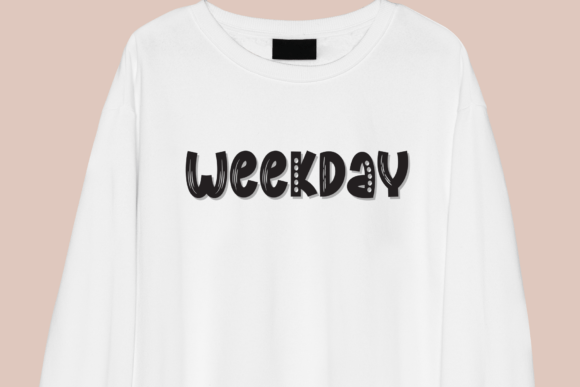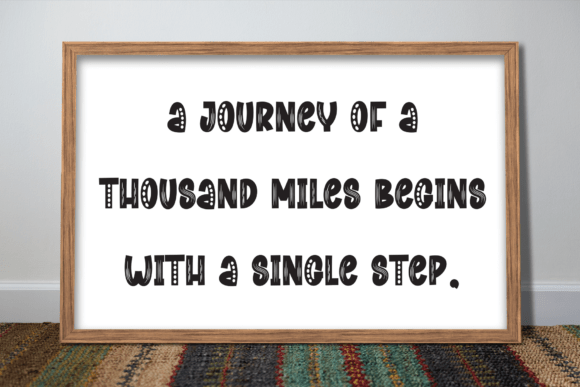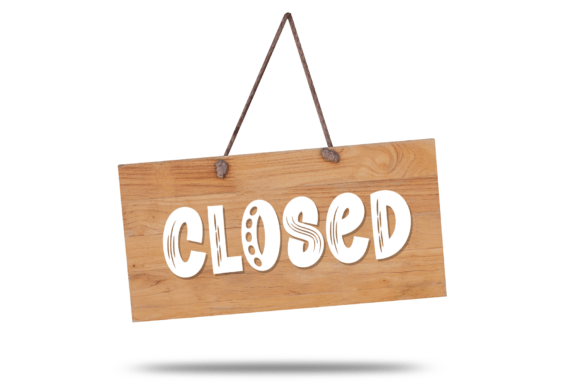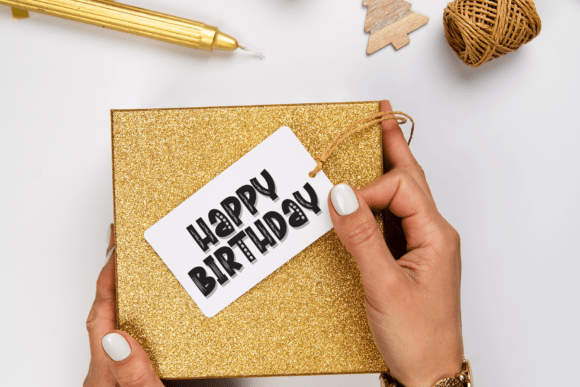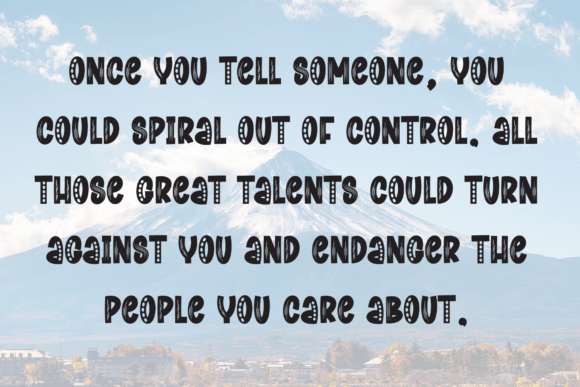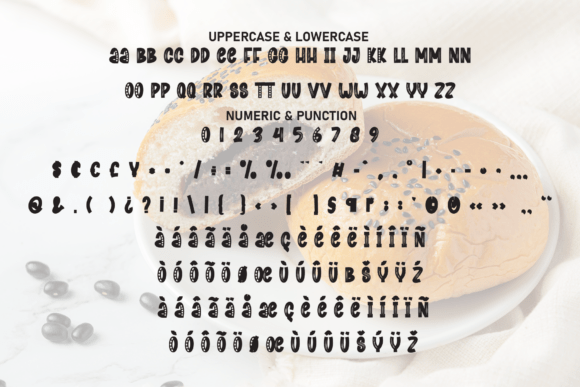
Bread Choco Font: The Perfect Blend of Modern Simplicity and Playful Charm
In the world of typography, fonts play a crucial role in conveying the tone and personality of a brand or design. When it comes to creating a lasting impression, the right font can make all the difference. Introducing Bread Choco, a casual display font that effortlessly blends modern simplicity with a playful, approachable vibe. In this article, we’ll dive into the features and benefits of Bread Choco, and explore how it can elevate your designs to the next level.
Clean Shapes, Soft Edges, and Well-Balanced Letterforms
Bread Choco’s design is characterized by clean shapes, soft edges, and well-balanced letterforms. This unique combination gives the font its distinctive charm, making it perfect for designs that require a relaxed yet stylish touch. The clean shapes and soft edges create a smooth, rounded appearance that is both visually appealing and easy on the eyes. The well-balanced letterforms ensure that each character is legible and consistent, making it ideal for use in a variety of design applications.
Ideal for a Variety of Design Applications
Bread Choco is a versatile font that can be used in a range of design applications, including posters, branding, packaging, and social media graphics. Its casual display style makes it perfect for creating eye-catching headlines, titles, and captions that grab attention and convey a sense of friendliness. Whether you’re designing a flyer for a local event or creating a brand identity for a new business, Bread Choco is the perfect choice.
Adding a Fresh and Friendly Touch to Your Designs
One of the standout features of Bread Choco is its ability to add a fresh and friendly touch to any project. The font’s playful, approachable vibe makes it perfect for designs that require a bit of personality and whimsy. Whether you’re creating a design for a children’s brand, a lifestyle blog, or a small business, Bread Choco is sure to bring a smile to your audience’s face.
Versatile Character and Eye-Catching Appeal
Bread Choco’s versatile character and eye-catching appeal make it a font that can be used in a variety of contexts. Its modern simplicity and playful charm ensure that it will stand out in any design, while its clean shapes and well-balanced letterforms guarantee readability. Whether you’re using Bread Choco for a bold headline or a subtle caption, it’s sure to deliver both style and substance.
Bread Choco is a font that is sure to delight designers and crafters alike. Its unique blend of modern simplicity and playful charm makes it a valuable addition to any design toolkit. With Bread Choco, designers can create a wide range of designs, from bold and eye-catching posters to subtle and sophisticated branding materials. Crafters can also use Bread Choco to add a personal touch to their projects, such as handmade cards, scrapbooking, and DIY crafts.
Key Features and Benefits of Bread Choco
- Clean shapes, soft edges, and well-balanced letterforms
- Ideal for posters, branding, packaging, and social media graphics
- Versatile character and eye-catching appeal
- Perfect for designs that require a relaxed yet stylish touch
- Easy to read and visually appealing
- Suitable for a wide range of design applications
In conclusion, Bread Choco is a casual display font that is sure to make a lasting impression. Its unique blend of modern simplicity and playful charm makes it perfect for designers and crafters looking to add a fresh and friendly touch to their designs. With its versatile character, eye-catching appeal, and readability, Bread Choco is a valuable addition to any design toolkit. So why wait? Give Bread Choco a try today and see how it can elevate your designs to the next level!